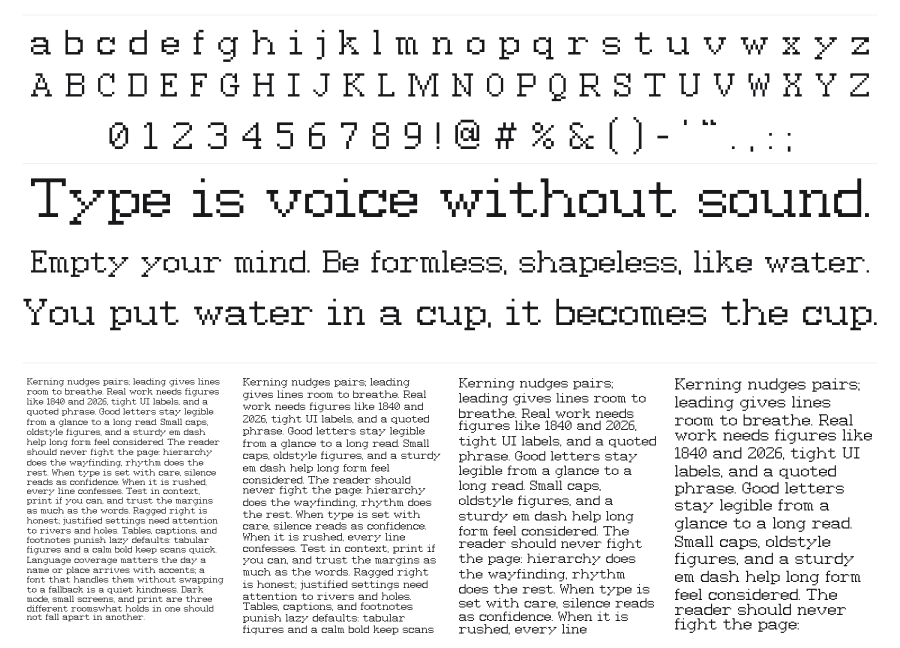
The Wyoming
The Wyoming is a pixelated bitmap slab-serif inspired by the internet horror phenomenon 'The Wyoming Incident.' Its blocky dot-matrix construction and deliberately low-res aesthetic give it an eerie, screen-corrupted quality that sits somewhere between a vintage terminal font and a glitch artifact. It works best at larger sizes where the pixel grid is visible and intentional.